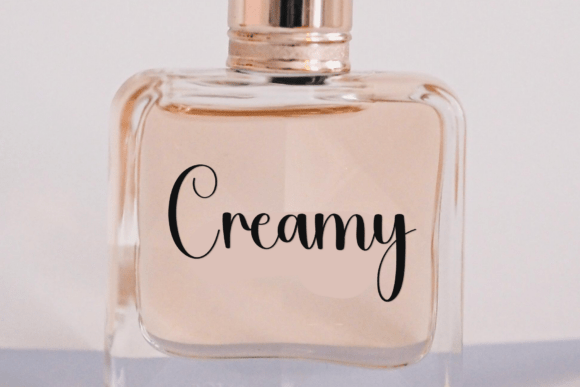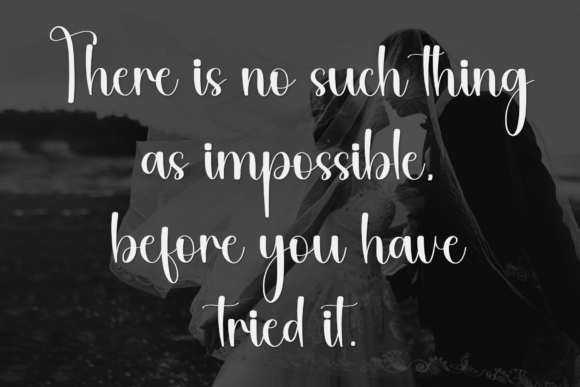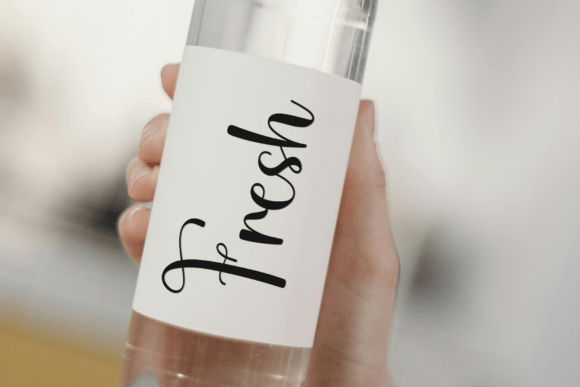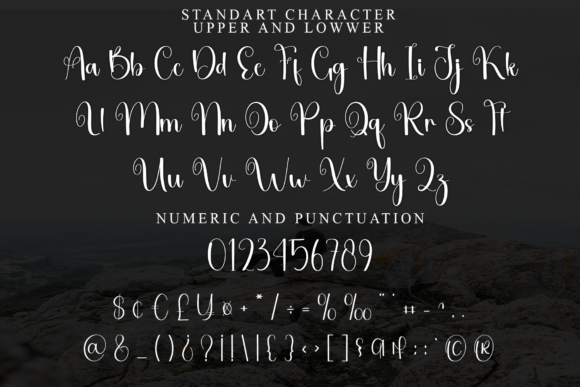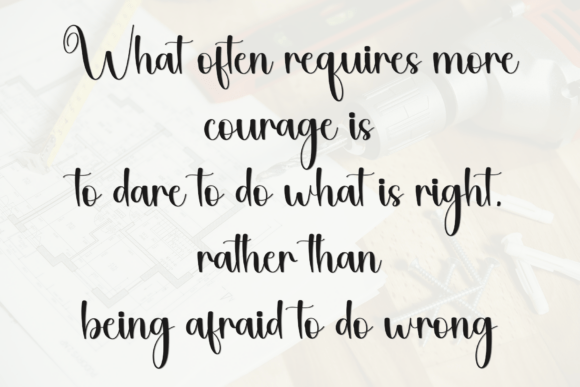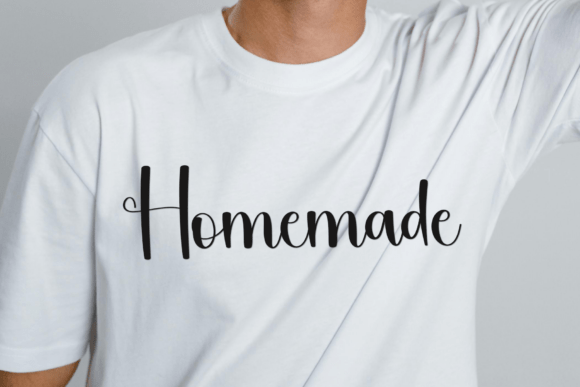
Discover the Charm of Blacklist Font: A Casual and Creative Typeface
Are you tired of using the same old fonts for your personal projects, invitations, and social media graphics? Look no further than the Blacklist Font, a casual and creative typeface that exudes warmth and friendliness. With its round, playful strokes, this font creates a relaxed and approachable feel that’s perfect for designers and crafters looking to add a personal touch to their work.
The Characteristics of Blacklist Font
The Blacklist Font is a hand-drawn typeface that boasts a charming and unique aesthetic. Its playful strokes and rounded edges create a fun and inviting feel that’s sure to capture the attention of your audience. Whether you’re designing a birthday invitation, a social media graphic, or a personal project, this font is sure to add a touch of warmth and personality to your work.
What Makes Blacklist Font So Versatile?
Perfect for Personal Projects and Designs
The Blacklist Font is perfect for designers and crafters who want to add a personal touch to their work. Whether you’re creating a custom invitation, a social media graphic, or a personal project, this font is sure to bring a touch of warmth and friendliness to your design. Its casual and creative vibe makes it ideal for:
• Personal projects, such as scrapbooking and journaling
• Invitations, such as birthday and wedding invitations
• Social media graphics, such as Facebook and Instagram posts
• Branding and packaging design
How to Use Blacklist Font in Your Designs
Using the Blacklist Font in your designs is easy. Here are a few tips to get you started:
• Pair it with other fonts: The Blacklist Font pairs well with other fonts, such as sans-serif and script fonts. Experiment with different combinations to find the perfect look for your design.
• Use it in headings and titles: The Blacklist Font is perfect for headings and titles, where its playful and creative vibe can really shine.
• Experiment with colors: The Blacklist Font looks great in a variety of colors, from bold and bright to soft and pastel.
Why Choose Blacklist Font?
So why choose the Blacklist Font for your next design project? Here are just a few reasons:
• Unique and creative aesthetic: The Blacklist Font has a charming and unique aesthetic that’s sure to set your design apart.
• Warm and friendly vibe: The Blacklist Font exudes warmth and friendliness, making it perfect for personal projects and designs.
In conclusion, the Blacklist Font is a casual and creative typeface that’s perfect for designers and crafters looking to add a personal touch to their work. With its charming and unique aesthetic, versatile compatibility, and warm and friendly vibe, this font is sure to become a favorite in your design arsenal. So why wait? Download the Blacklist Font today and start creating designs that are truly one-of-a-kind.